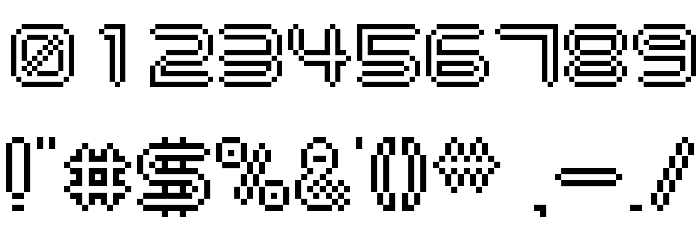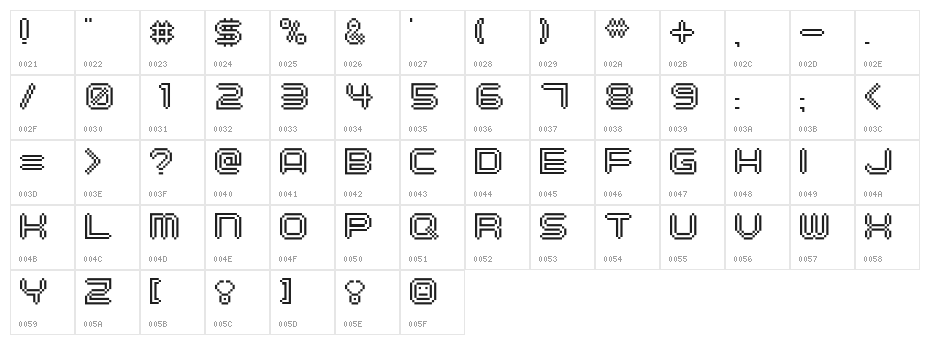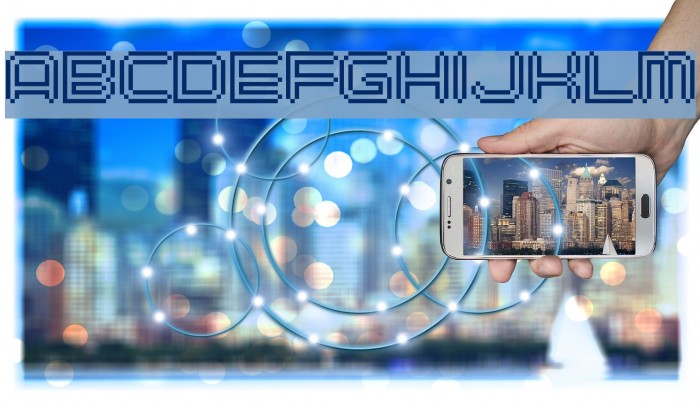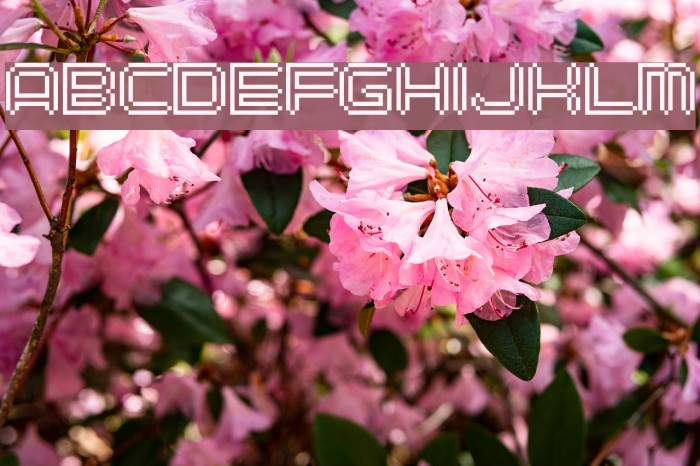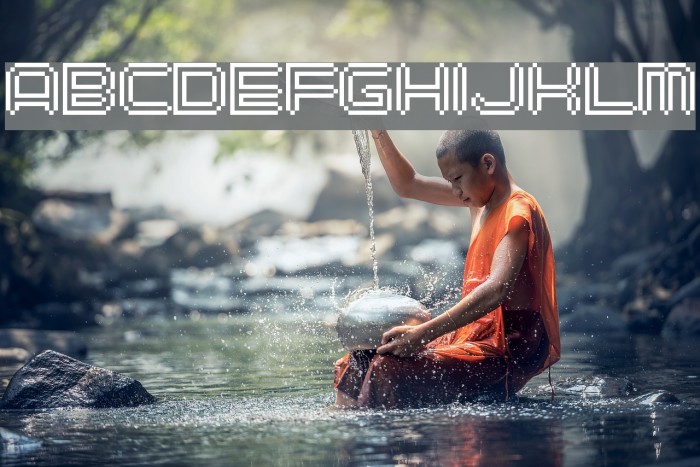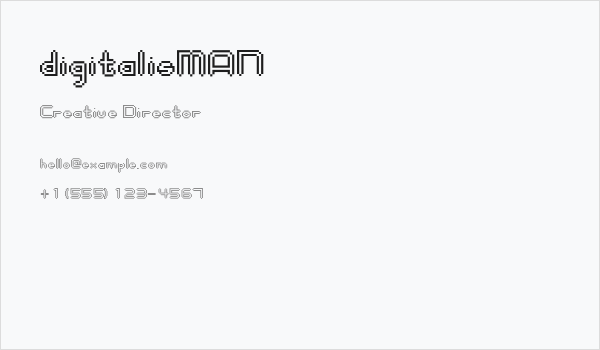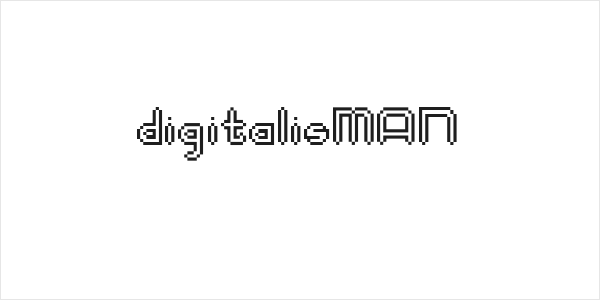
digitalisMAN Font
digitalisMAN Description
This font features a distinct pixelated design, reminiscent of early digital displays and retro video games. Each character is composed of small, square blocks, giving it a unique, tech-inspired aesthetic. The uppercase and lowercase letters maintain a consistent style, with clear, geometric shapes that enhance readability. Numbers and special characters follow the same pixelated pattern, ensuring uniformity across all glyphs. The overall appearance is both nostalgic and modern, making it suitable for projects that aim to evoke a sense of digital nostalgia or a futuristic vibe.
| Proposed Projects | Ideal for video game designs, tech-themed posters, digital art projects, and retro-style branding. |